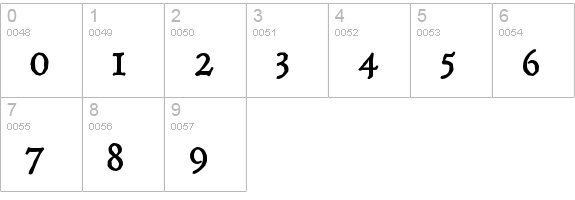
Hultog Font Details
Hultog font is a modern and elegant typeface that exudes sophistication and style. With its clean lines and sleek design, Hultog is perfect for a wide range of design projects, from branding to invitations to web design. Its versatility and readability make it a popular choice among designers looking for a timeless and classic font. The best part? Hultog font is completely free to download! You can get your hands on this stunning typeface at FontsMarket.com, where you'll find a wide selection of high-quality fonts for all your design needs. Don't miss out on the opportunity to add Hultog to your font collection and elevate your designs to the next level.